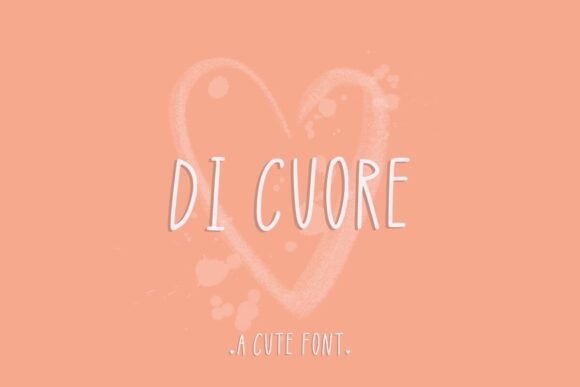
Give Your Designs a Personal Touch
You know that moment when you’re working on a project and you want to add that extra special something that makes it truly unique? Maybe it’s a handwritten note to a loved one, or a custom invitation for a special occasion. Whatever it is, you want it to feel personal and genuine. That’s where the Di Cuore Font comes in – a delightful handwritten English font that combines whimsy and elegance, making it perfect for a variety of creative projects.
With its unique, organic strokes, the Di Cuore Font evokes a personal touch that’s hard to replicate with traditional fonts. Whether you’re designing invitations, posters, or branding materials, this font is sure to add a touch of warmth and charm to your work. As a designer, you know how valuable it is to have a font that can convey a sense of personality and style – and the Di Cuore Font delivers.
Key Features of Di Cuore Font
- Unique Characteristics: This font features a unique, hand-drawn design with a mix of modern and vintage elements, making it perfect for creating eye-catching headlines and titles.
Di Cuore Font Review
Overall, I’m quite impressed with the Di Cuore Font. ✨ Its elegant, vintage-inspired design makes it perfect for projects that require a touch of sophistication. The font’s curves and lines are well-balanced, giving it a sense of refinement that’s hard to find in other fonts.
- ✨ Elegant, vintage-inspired design
- ✨ Well-balanced curves and lines
- ✨ Suitable for projects requiring sophistication
However, I do have some concerns about the font’s limitations. ⚠️ The Di Cuore Font doesn’t come with a wide range of weights or styles, which might make it less versatile for some designers. Additionally, the font’s italic style can look a bit uneven at larger font sizes.
- ⚠️ Limited range of weights and styles
- ⚠️ Uneven italic style at larger font sizes
Overall, I think the Di Cuore Font is a solid choice for designers looking for a vintage-inspired font. While it may have some limitations, its elegant design and well-balanced curves make it a great addition to any project.
Di Cuore Font: A Practical Application Guide
Di Cuore Font is ideal for:
2. Luxury brand logos and marketing materials.
3. Fine art and typography projects.
Alternatives to Di Cuore Font
Playfair Display is a luxurious, elegant serif font ideal for high-end designs, such as luxury brands, fashion magazines, and fine art galleries. It features intricate details and swashes, making it perfect for creating a sense of sophistication and refinement. Compared to Di Cuore Font, Playfair Display is more ornate and less modern, with a more traditional feel.
Merriweather is a classic, traditional serif font suitable for designs that require a sense of history and sophistication, such as academic journals, historical books, and formal invitations. It features a sturdy, classic design with a strong vertical axis, making it perfect for creating a sense of stability and reliability. Compared to Di Cuore Font, Merriweather is more formal and less modern, with a more traditional feel.